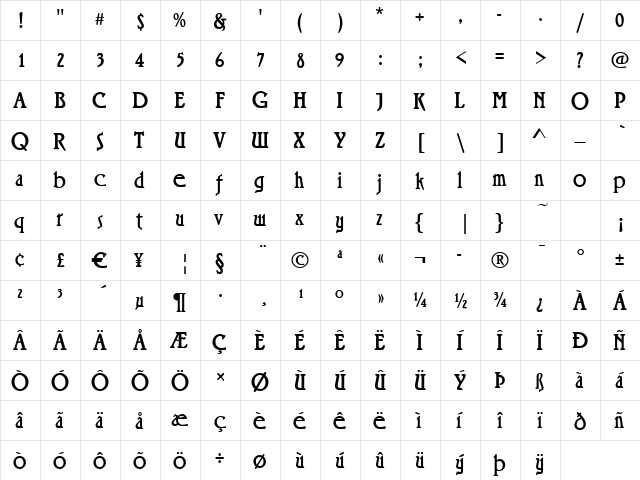
Rimini Regular
Design Context for Rimini Typeface
Rimini offers clean, dependable letterforms without strong stylistic allegiance, making it a practical choice for designers who need flexibility.